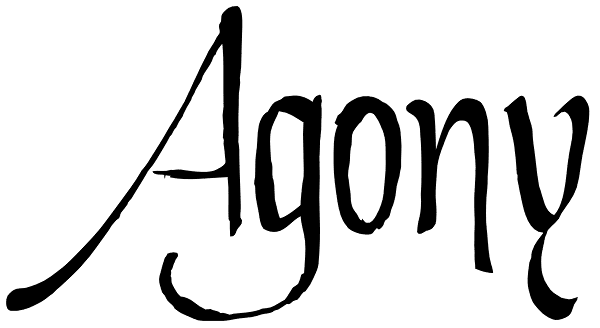
Agony
This condensed type is based on roman calligraphy and through having several alternates (on both upper and lower case) plus some non standard ligatures your text may looks like it’s written or handmade. You can combine this font with Ecstasy, also...